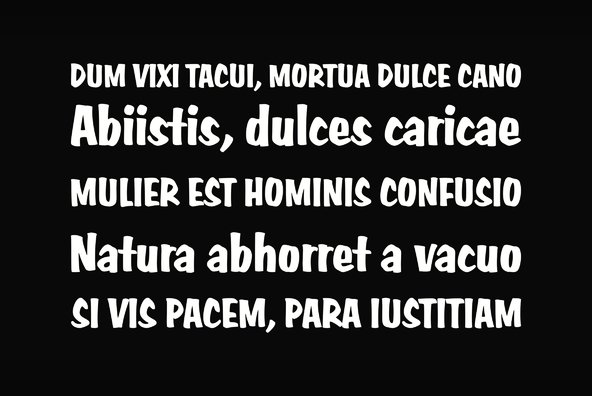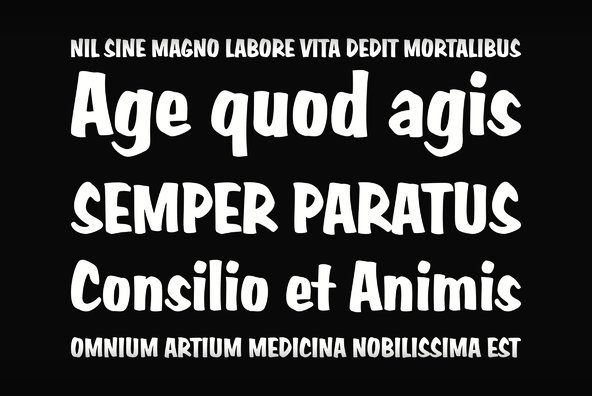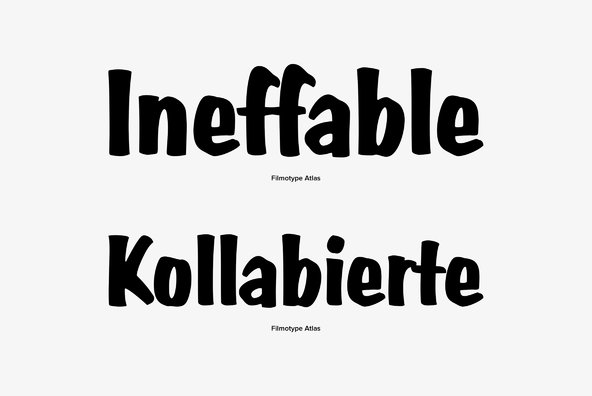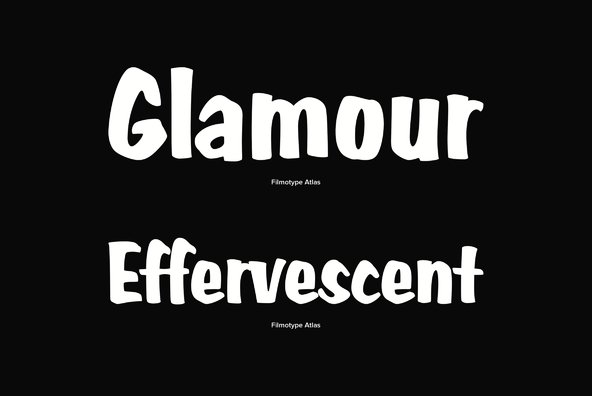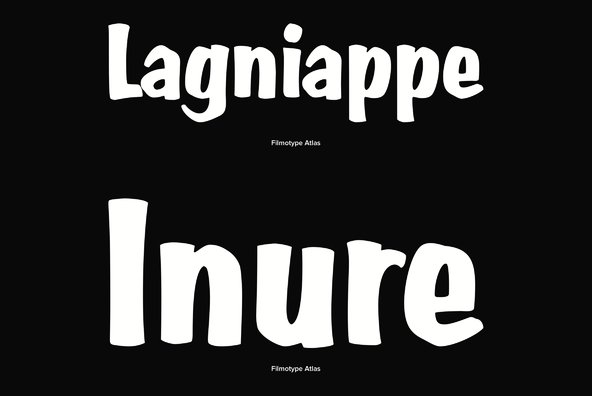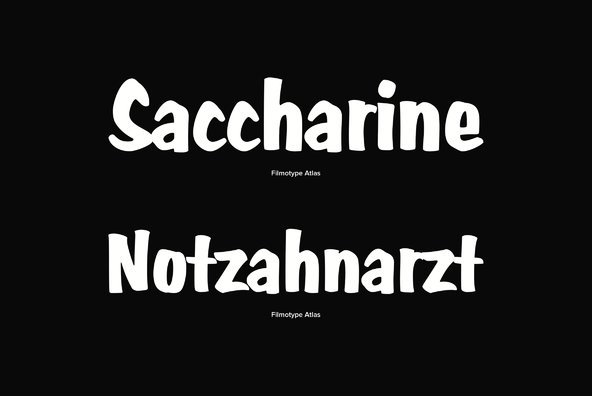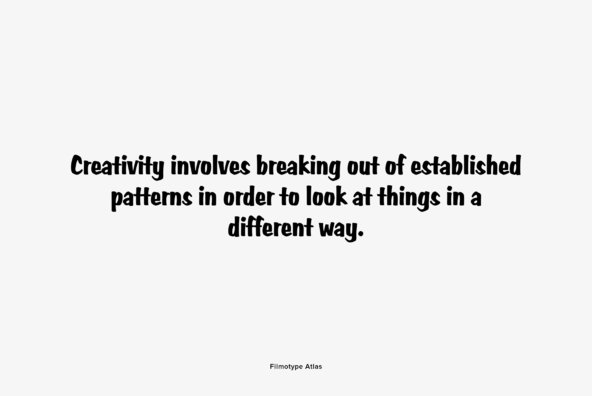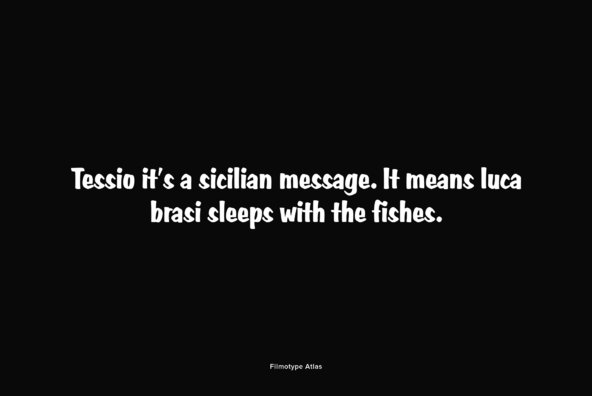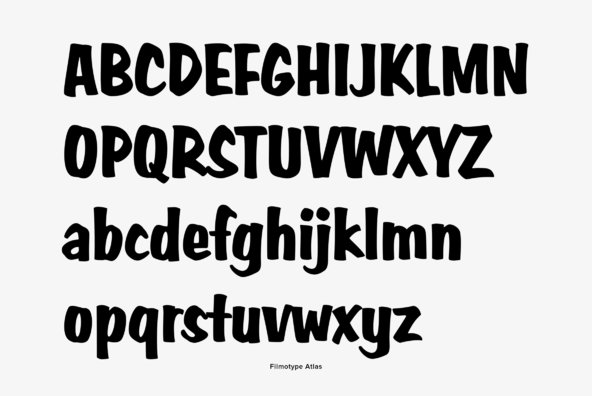
Filmotype Atlas
Filmotype Atlas was among the company’s earliest brush lettered casuals and was introduced by Filmotype in the early-to-mid 1950s. It perfectly captures informal sign painter hand lettering while providing comfortable readability.
Filmotype Atlas was developed from the original font filmstrips and includes a full international character complement, automatic fractionals, ordinals, and a nice complement of alternate characters and ligatures creating a genuine hand painted look in dynamic OpenType format.